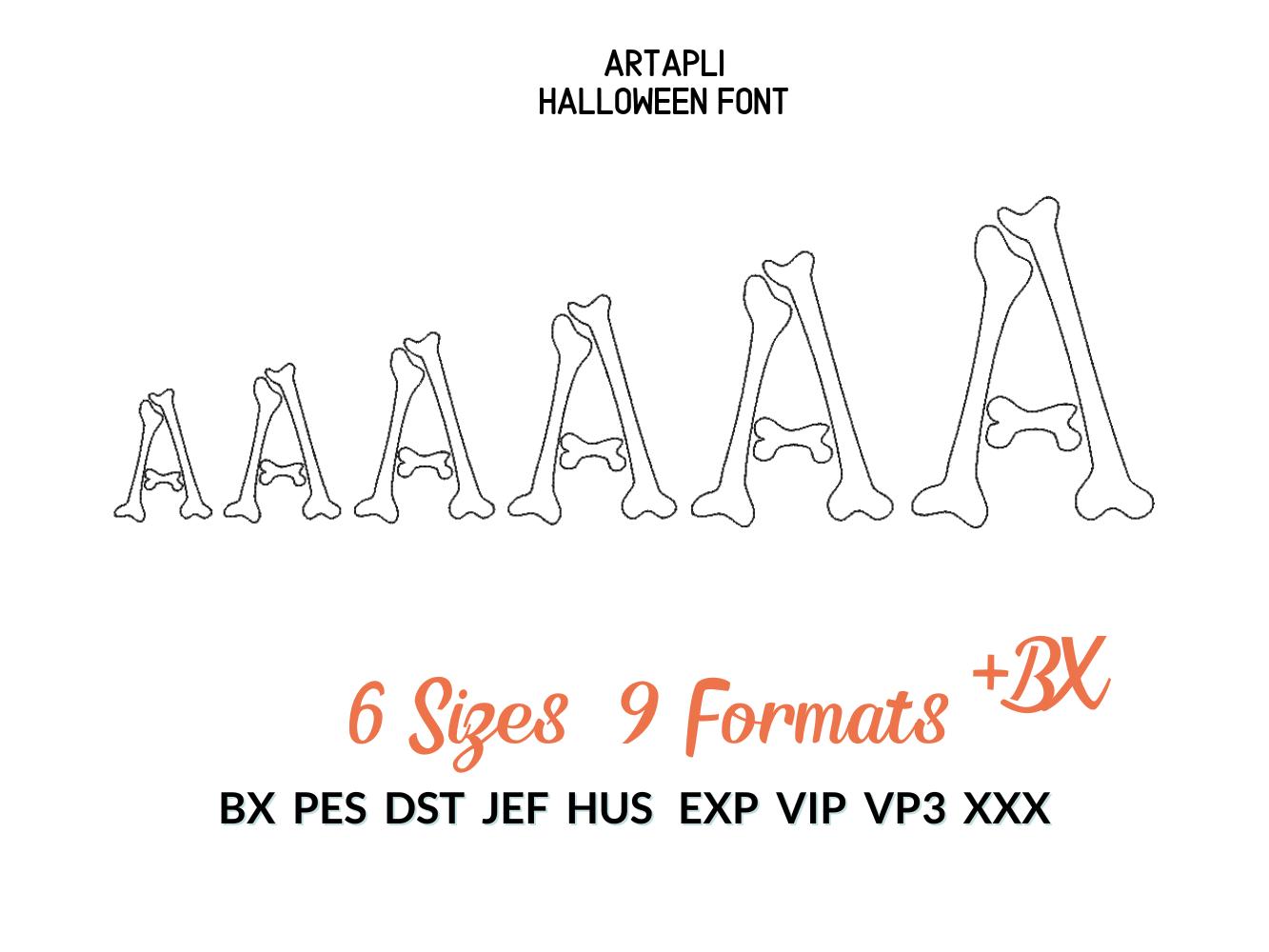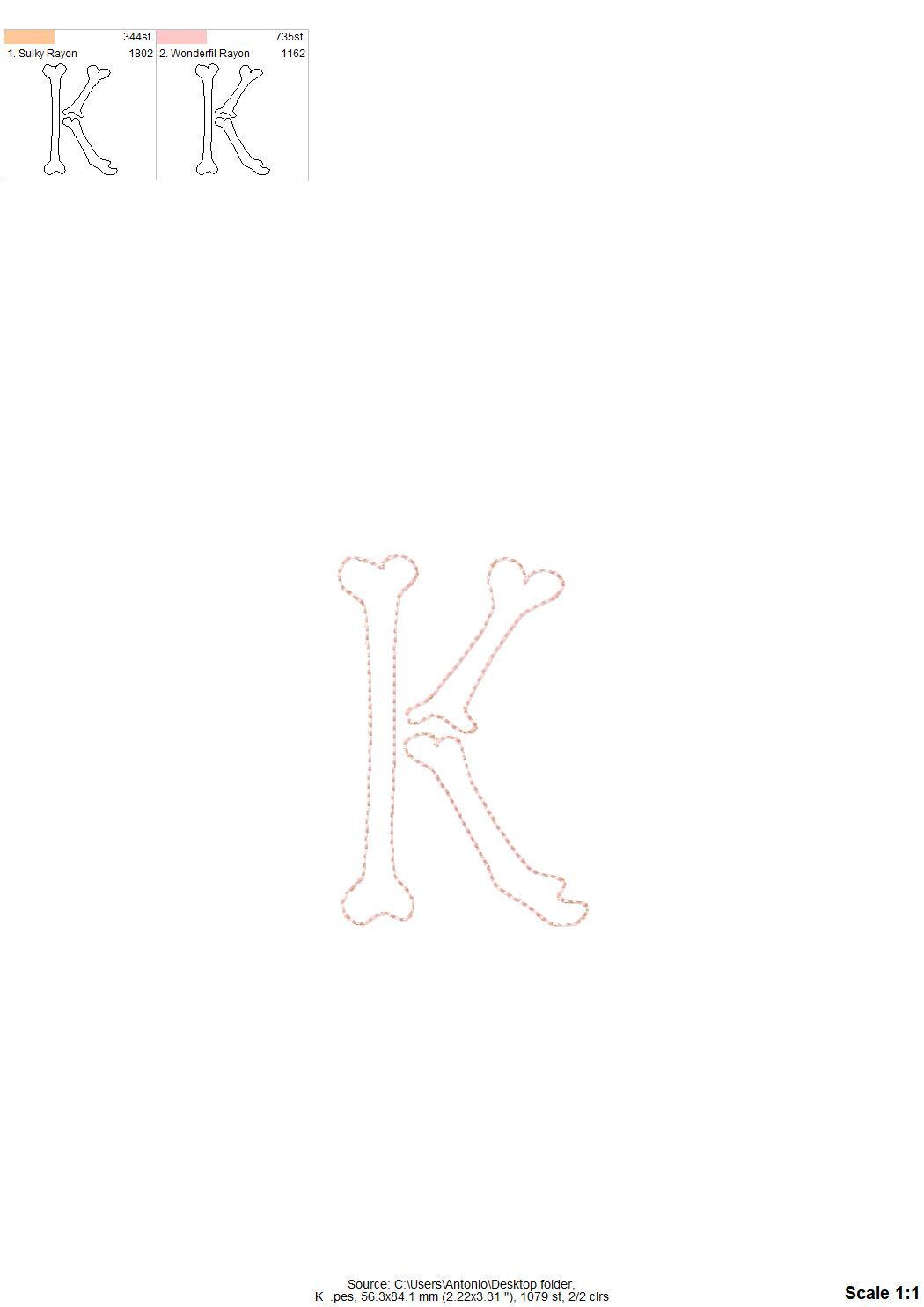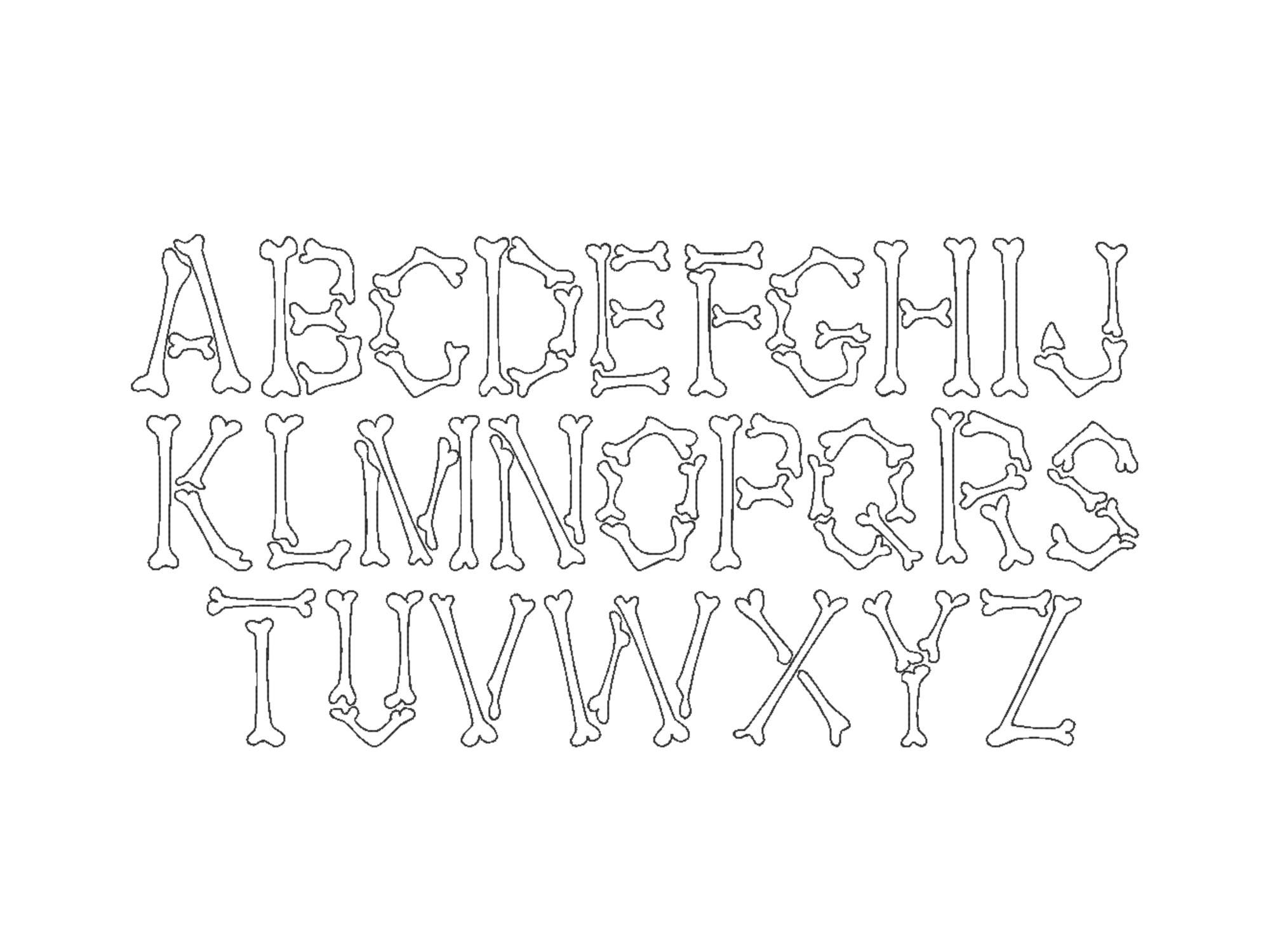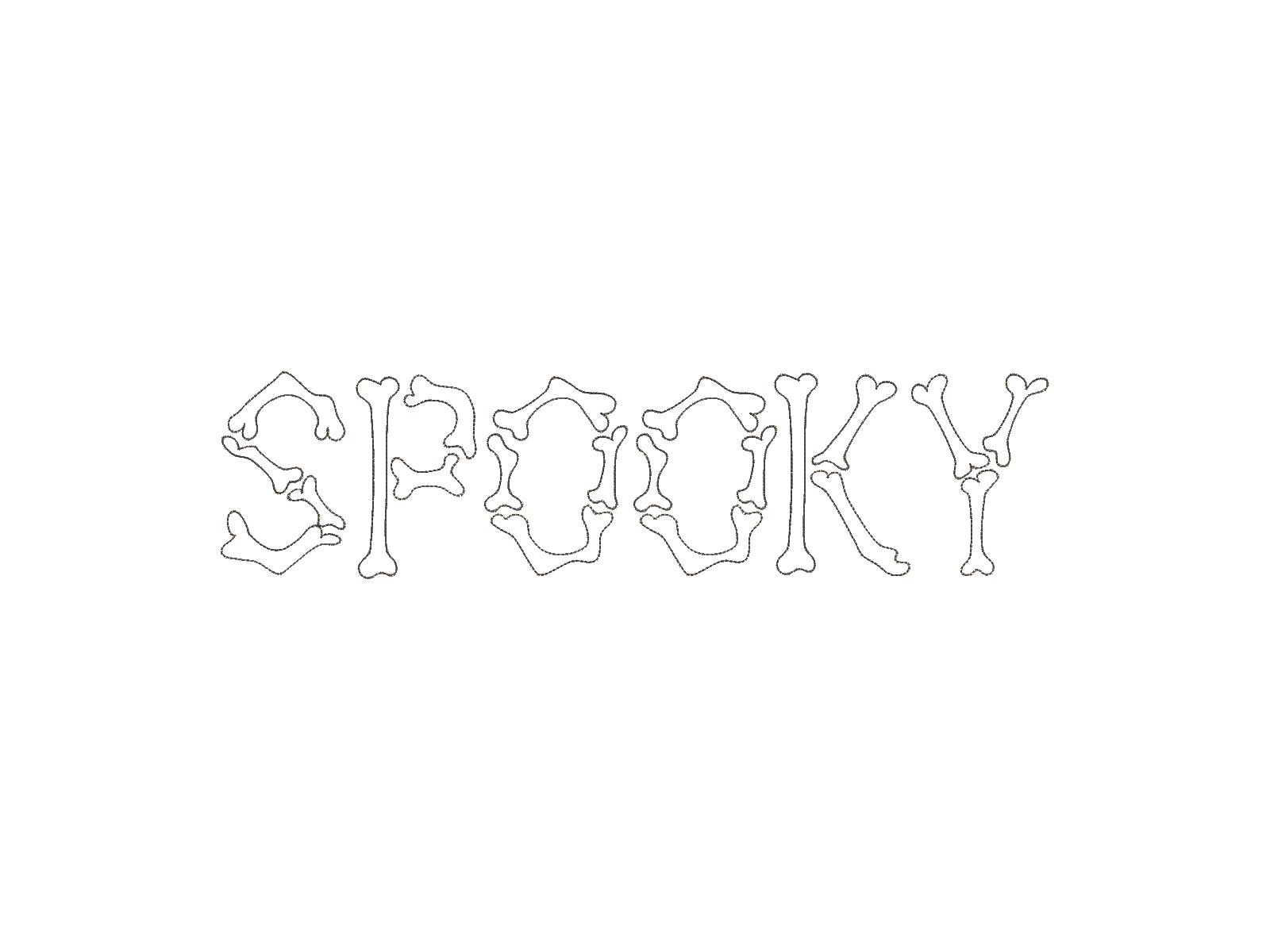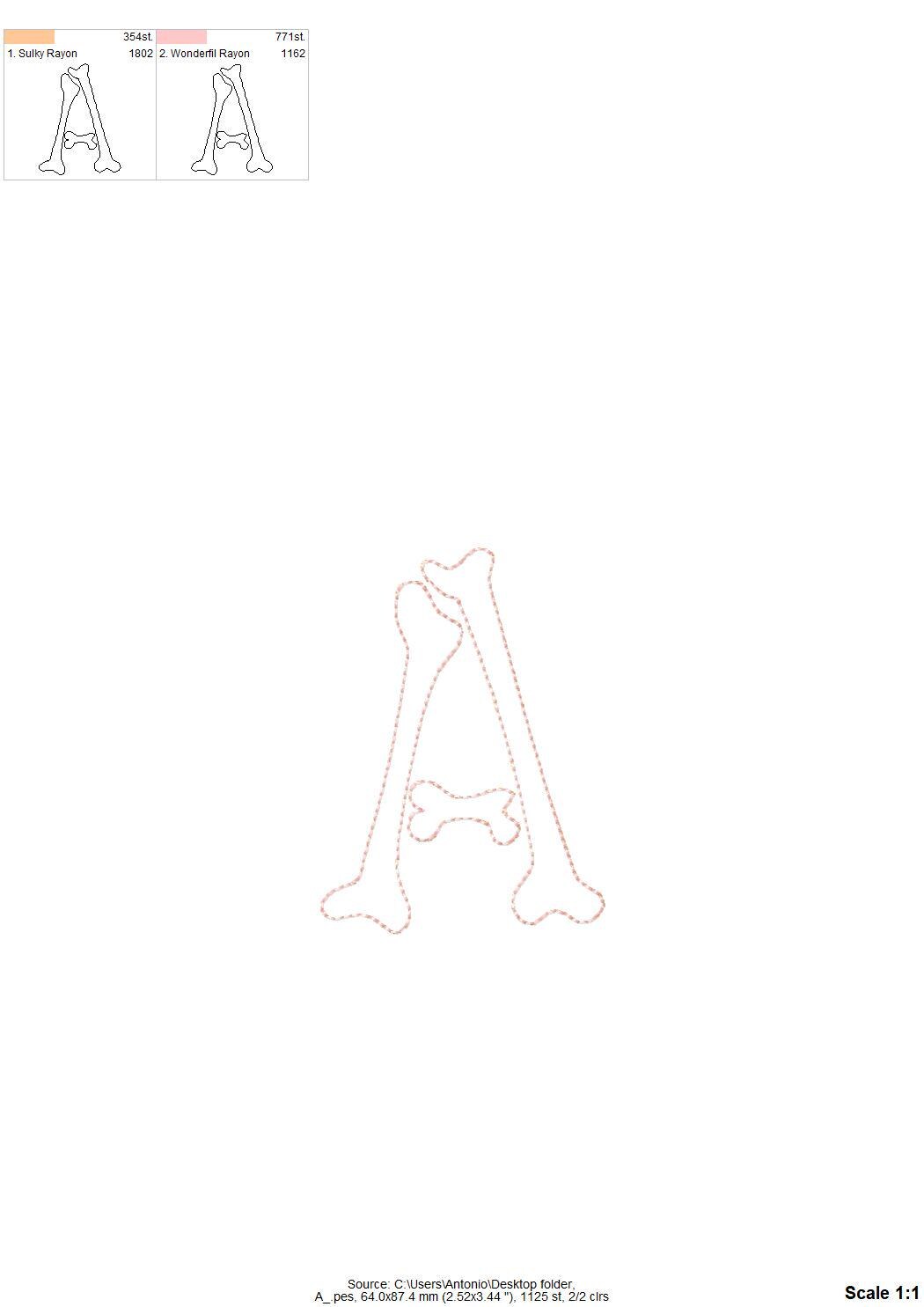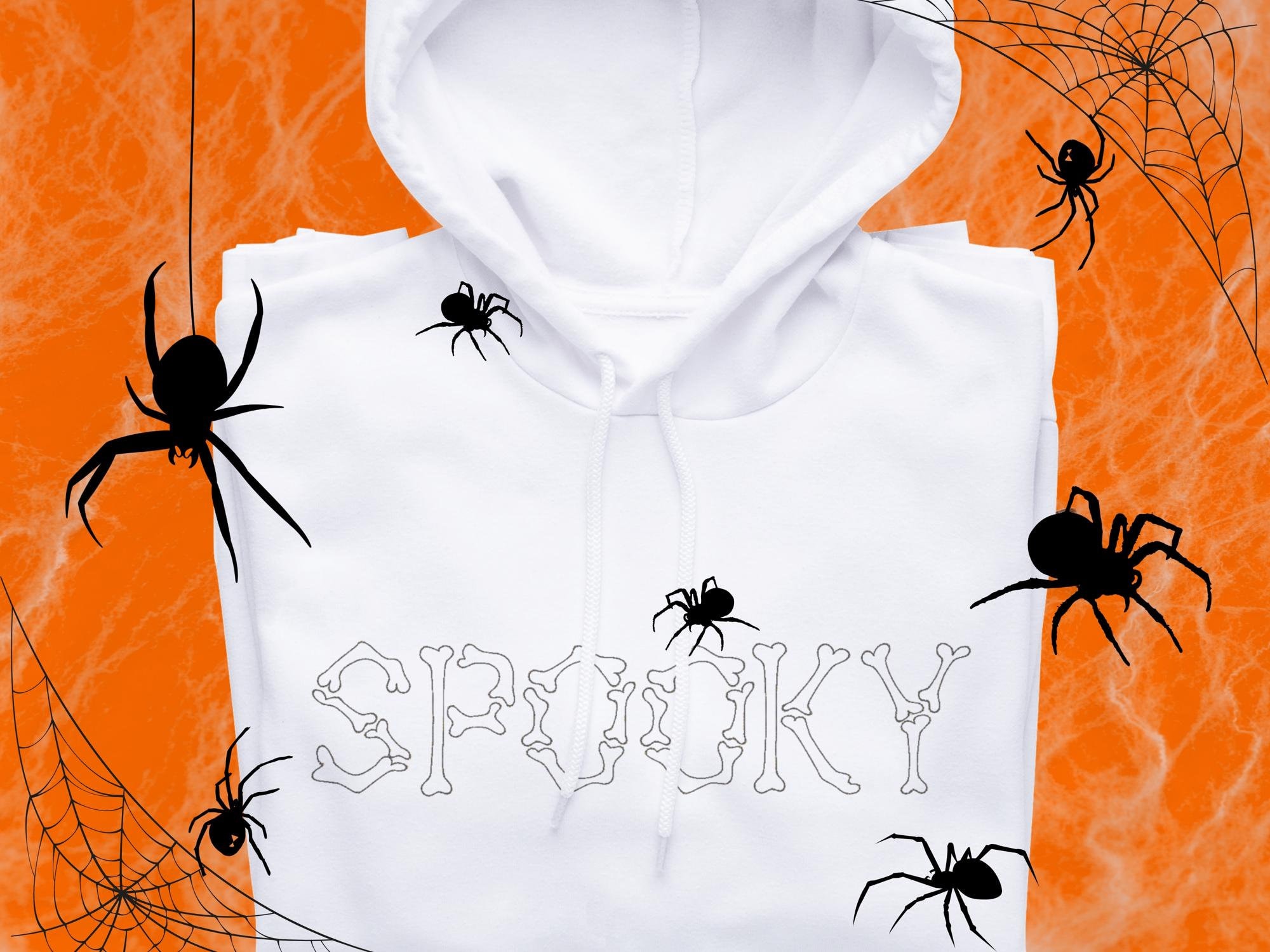
Halloween Skeleton Bones Font raggedy edge Applique scary alphabet machine embroidery designs Boo font open edge monogram sizes from 2.4 up to 6 inches, BX included
Whole alphabet A-Z uppercase letters.
Applique design, raggedy edge applique letters.